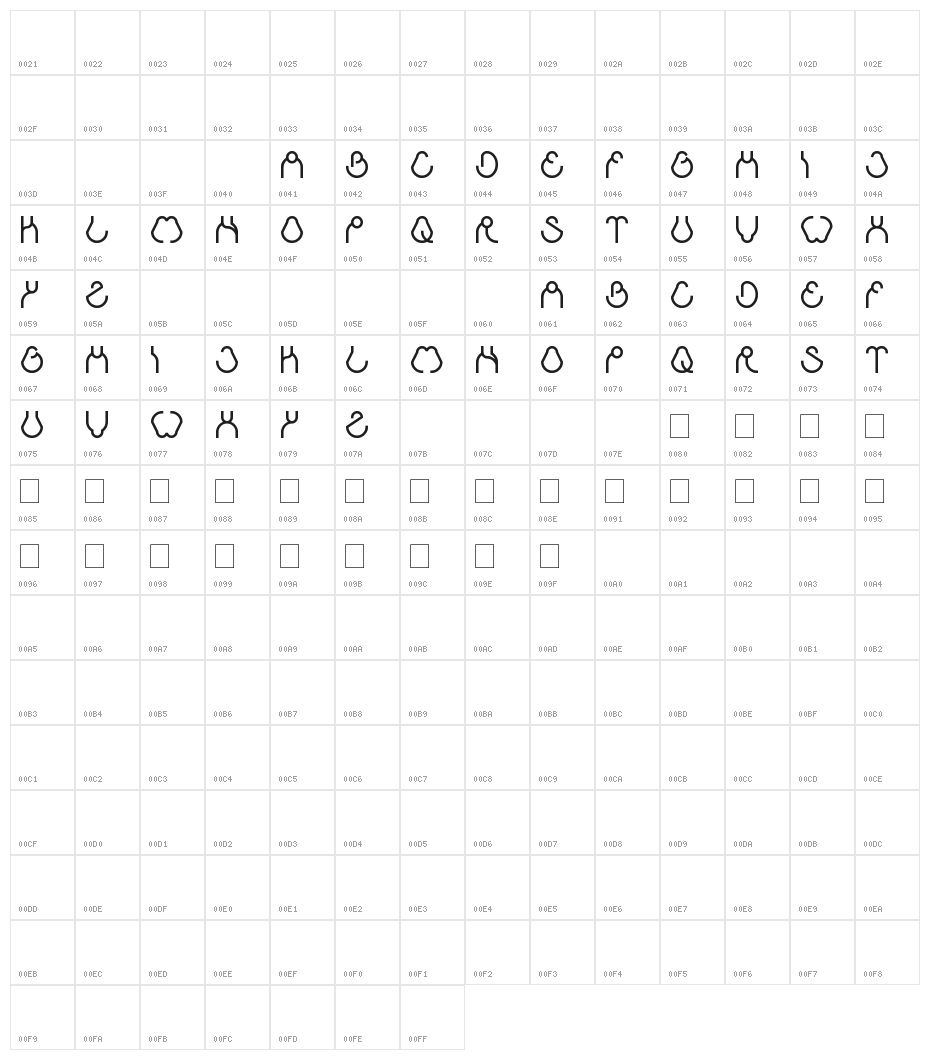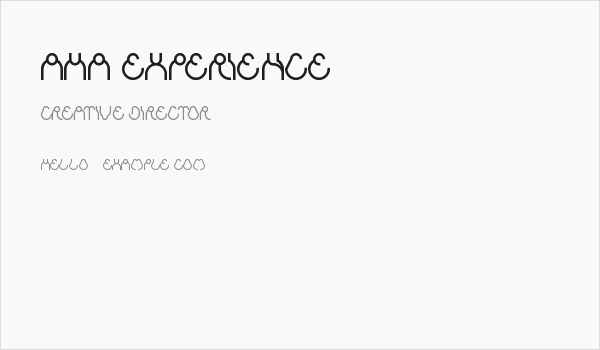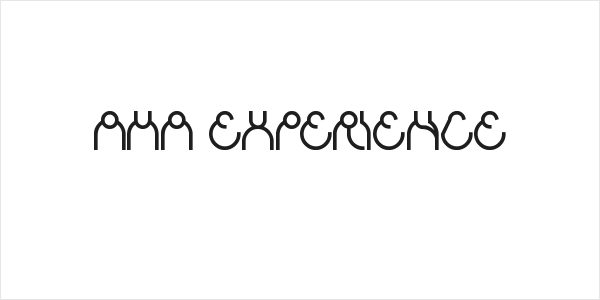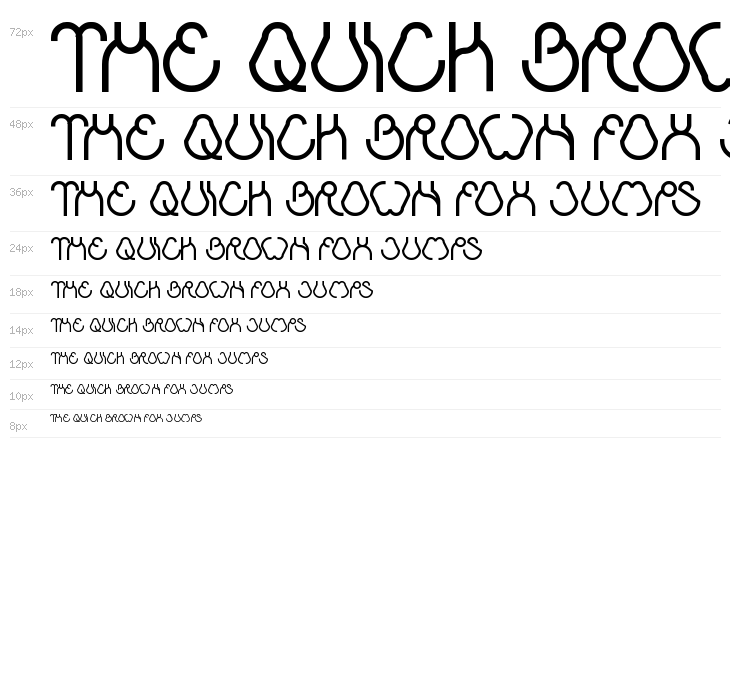
aha experience Font
aha experience Description
This font features a unique and modern design with a futuristic flair. The characters are composed of continuous, rounded lines that form a cohesive and interconnected appearance. The uppercase letters exhibit a consistent height and width, creating a uniform look across the alphabet. The lowercase letters maintain the same stylistic elements, ensuring a seamless transition between cases. The numbers and special characters are designed to match the overall aesthetic, with similar rounded and flowing lines. This font's distinct style makes it stand out, offering a visually appealing and innovative approach to typography.
| Use Case | Logos, Headlines, Digital media |
| Proposed Projects | Ideal for tech branding, futuristic designs, digital media, and creative projects requiring a modern touch. |